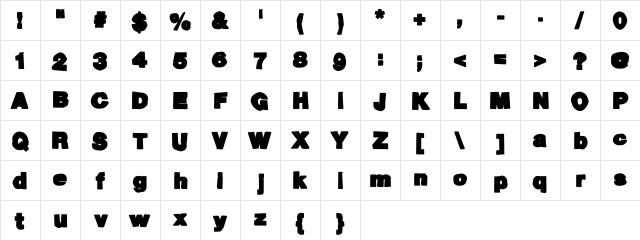
Ack-ack Regular
Design Context for Ack-ack Typeface
Ack-ack takes a measured approach to typography — its balanced proportions and neutral character make it a reliable workhorse for both digital and print work.